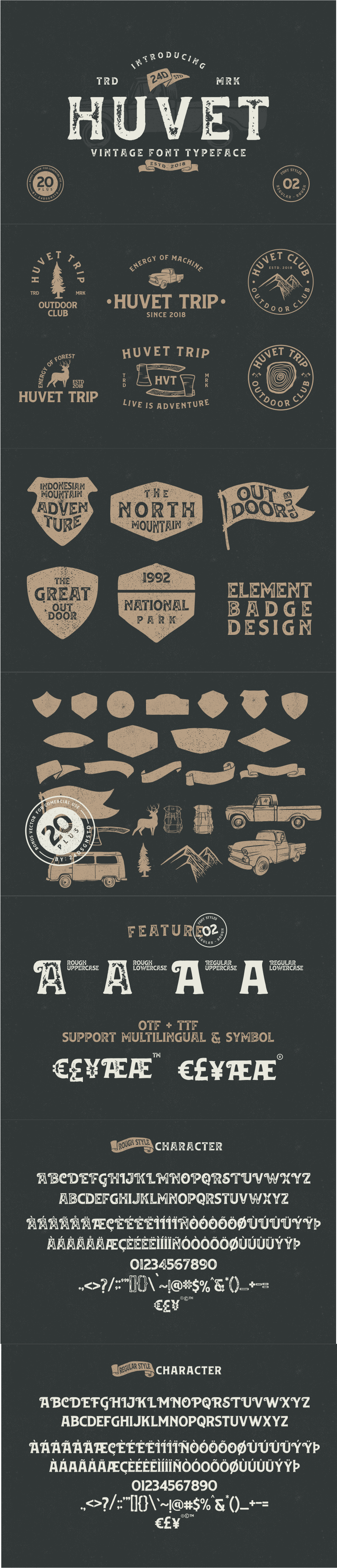
Huvet Font, created by Holis Majid, is a striking display font. Its masculine style makes it perfect branding, logos, T-shirts, emblems, badges, signs, labels and more.